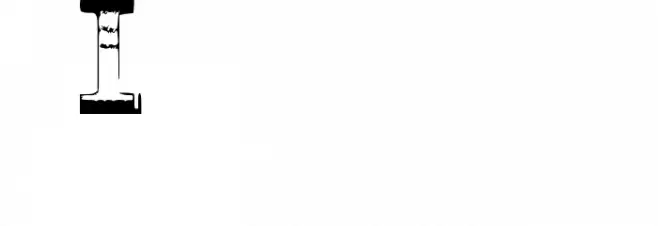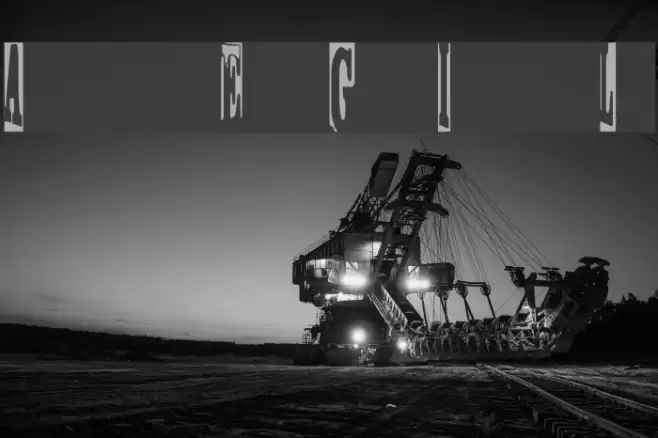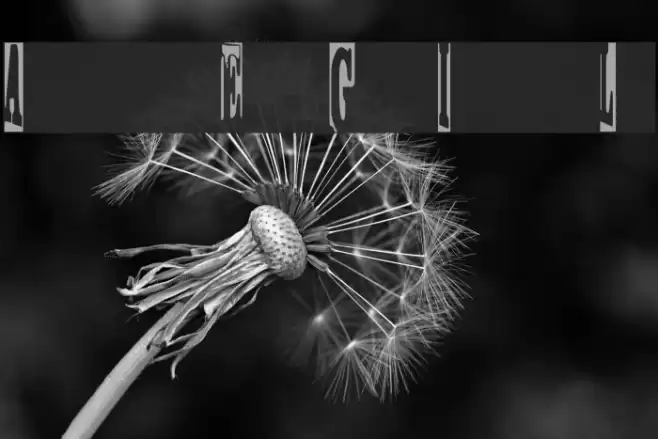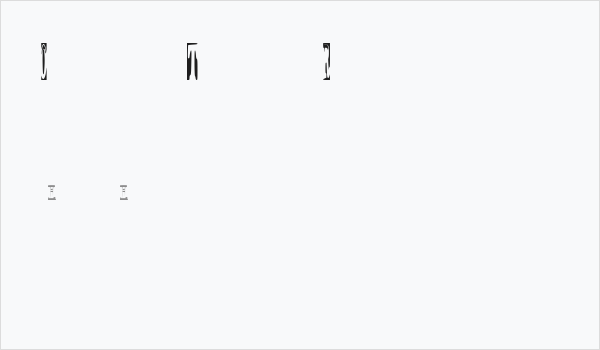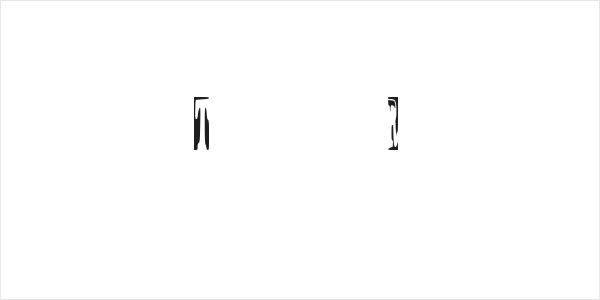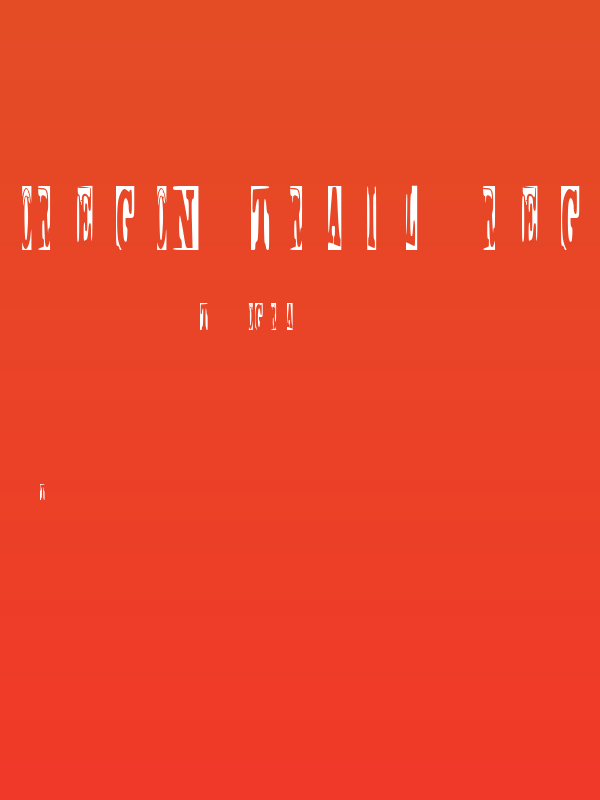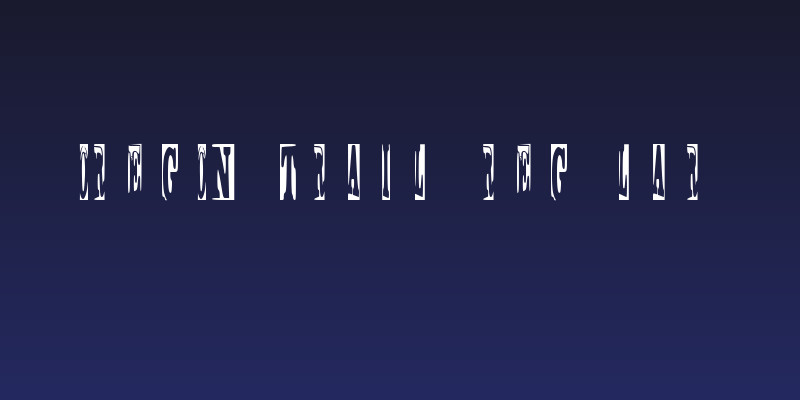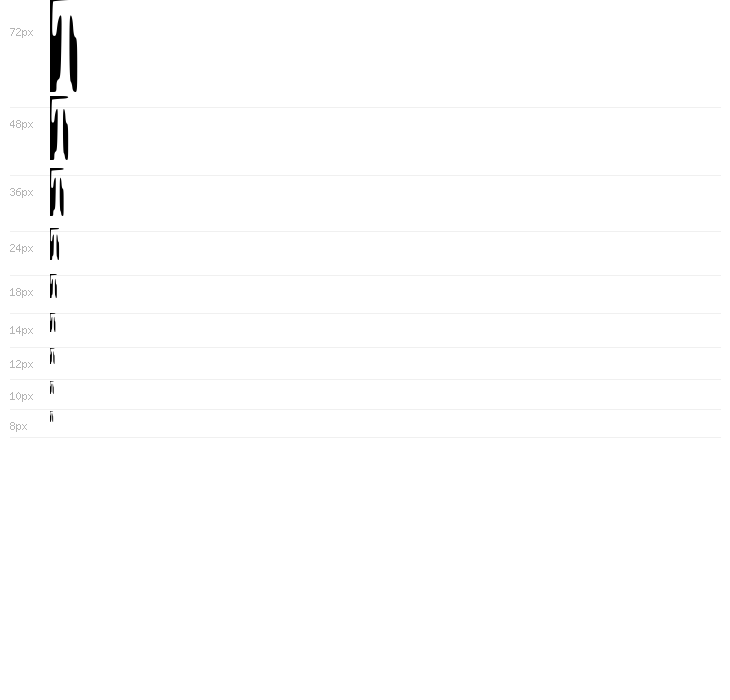
Oregon Trail Regular Font
Oregon Trail Regular Description
This font exudes a vintage, Western-inspired aesthetic, reminiscent of the typography used in the American frontier era. Its bold, slab serif design features intricate detailing within the strokes, giving it a rugged and adventurous feel. The characters are robust and impactful, with a distinct presence that commands attention. The font's unique style is characterized by its decorative elements, which add a touch of nostalgia and charm. It is well-suited for projects that aim to evoke a sense of history and tradition, making it ideal for themed designs and branding that require a strong, historical narrative.